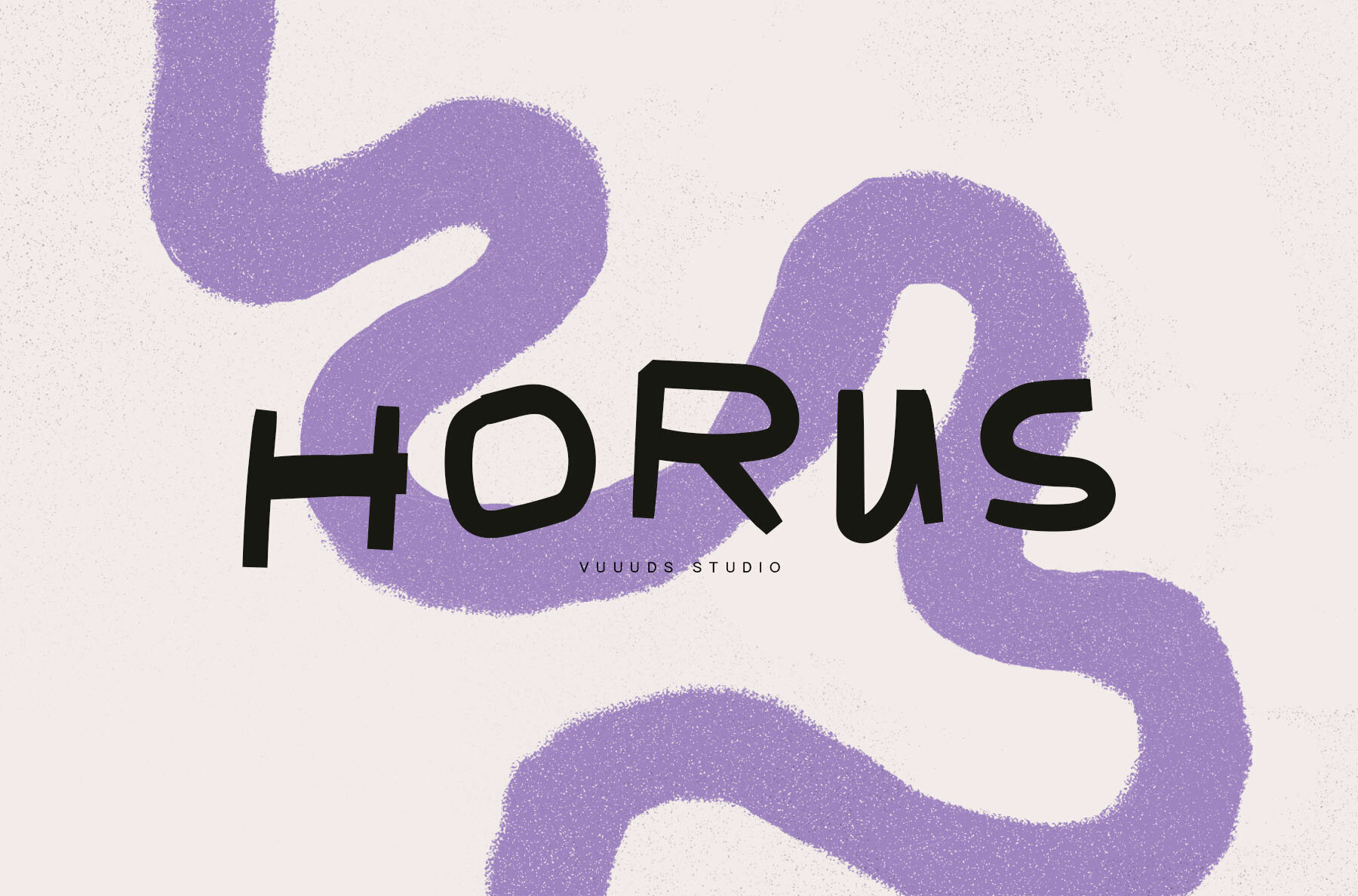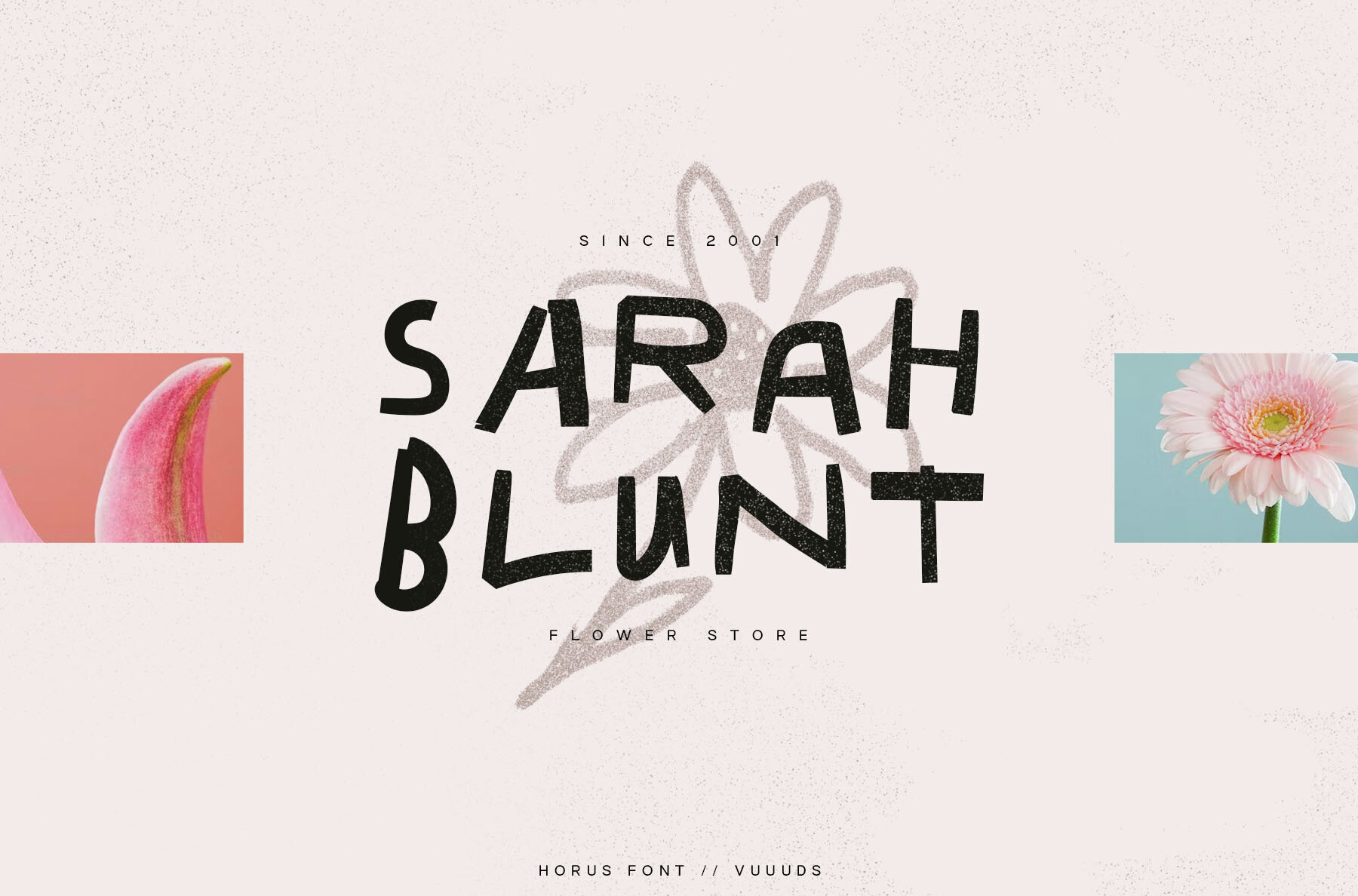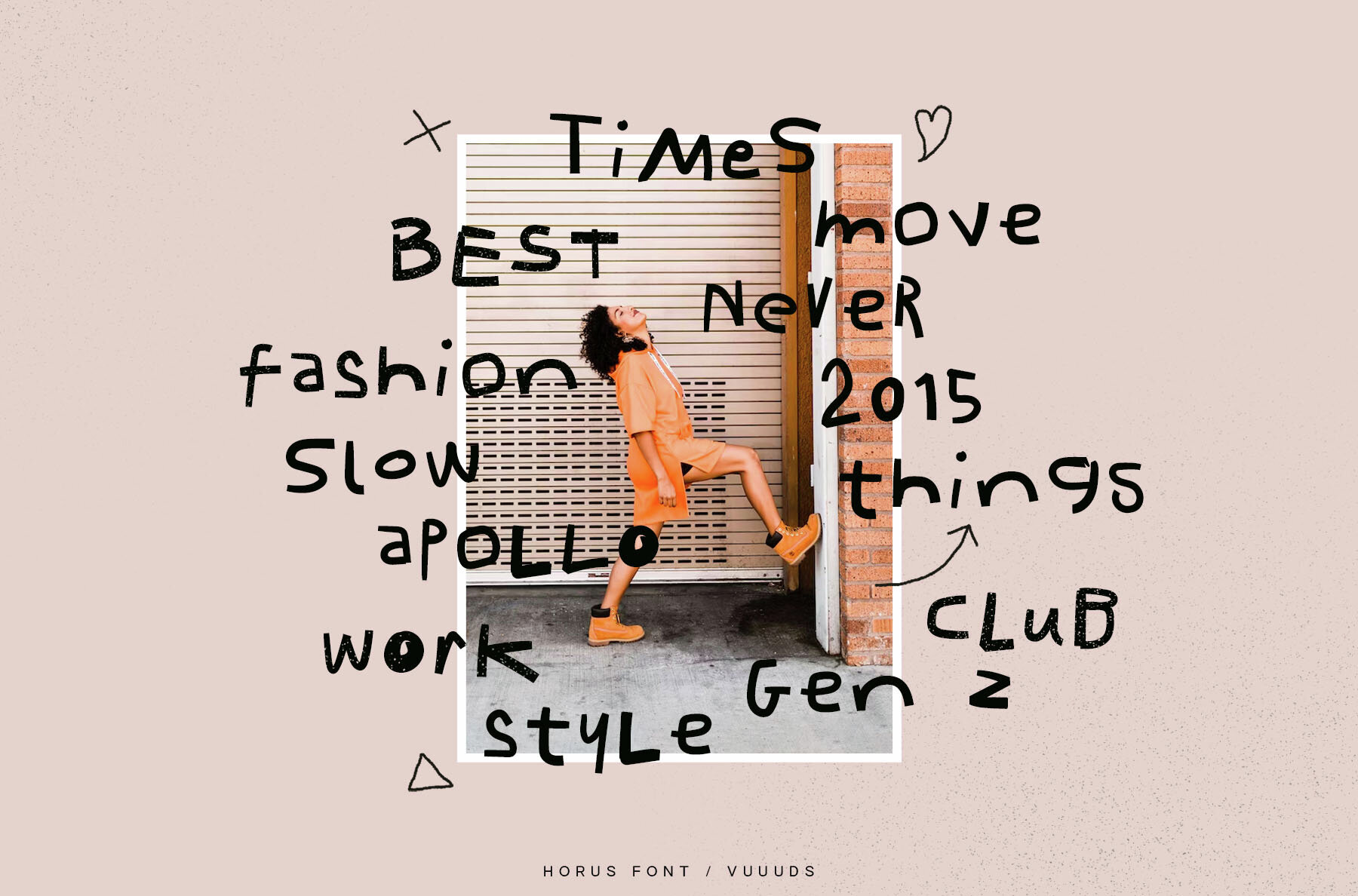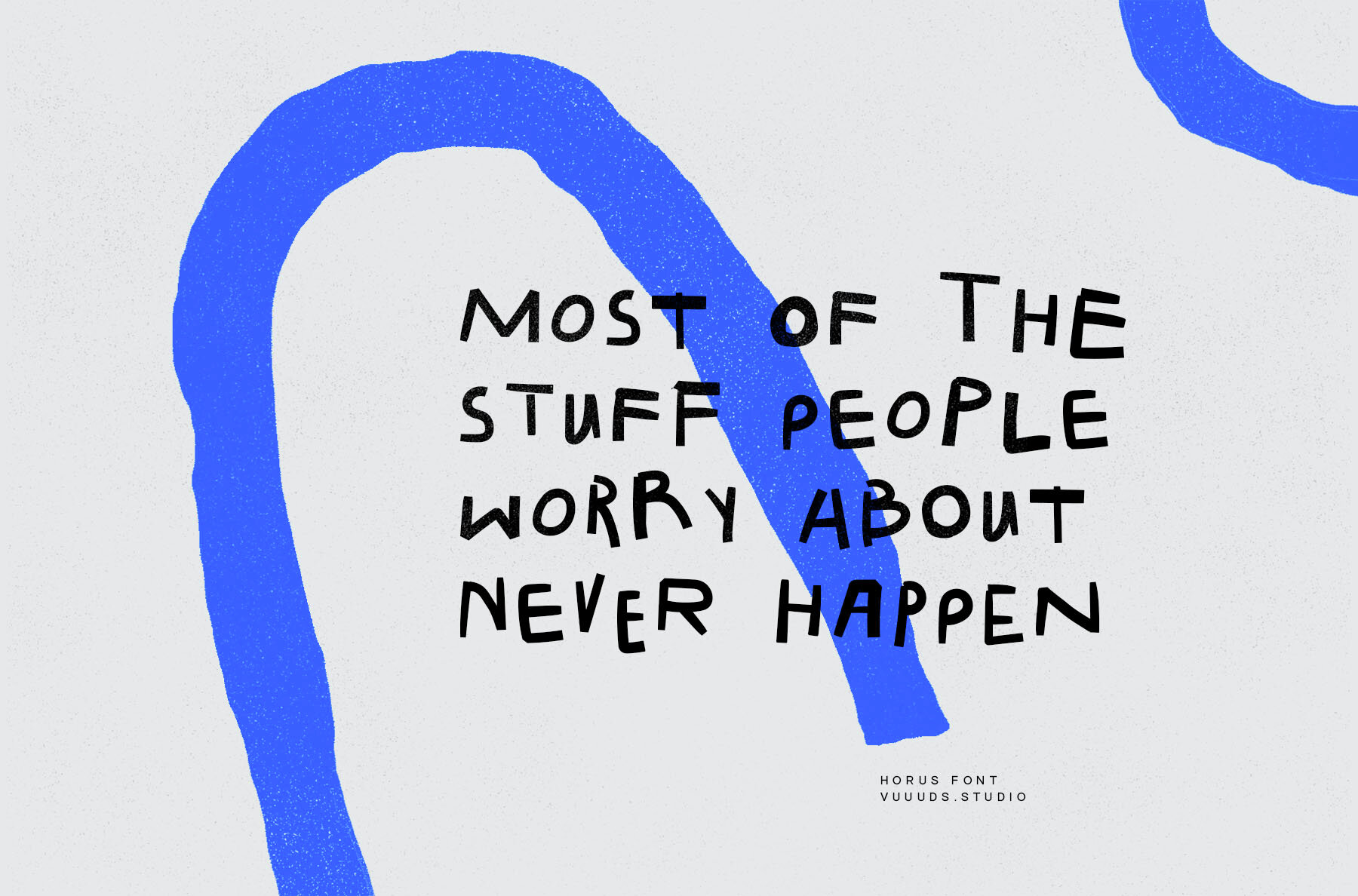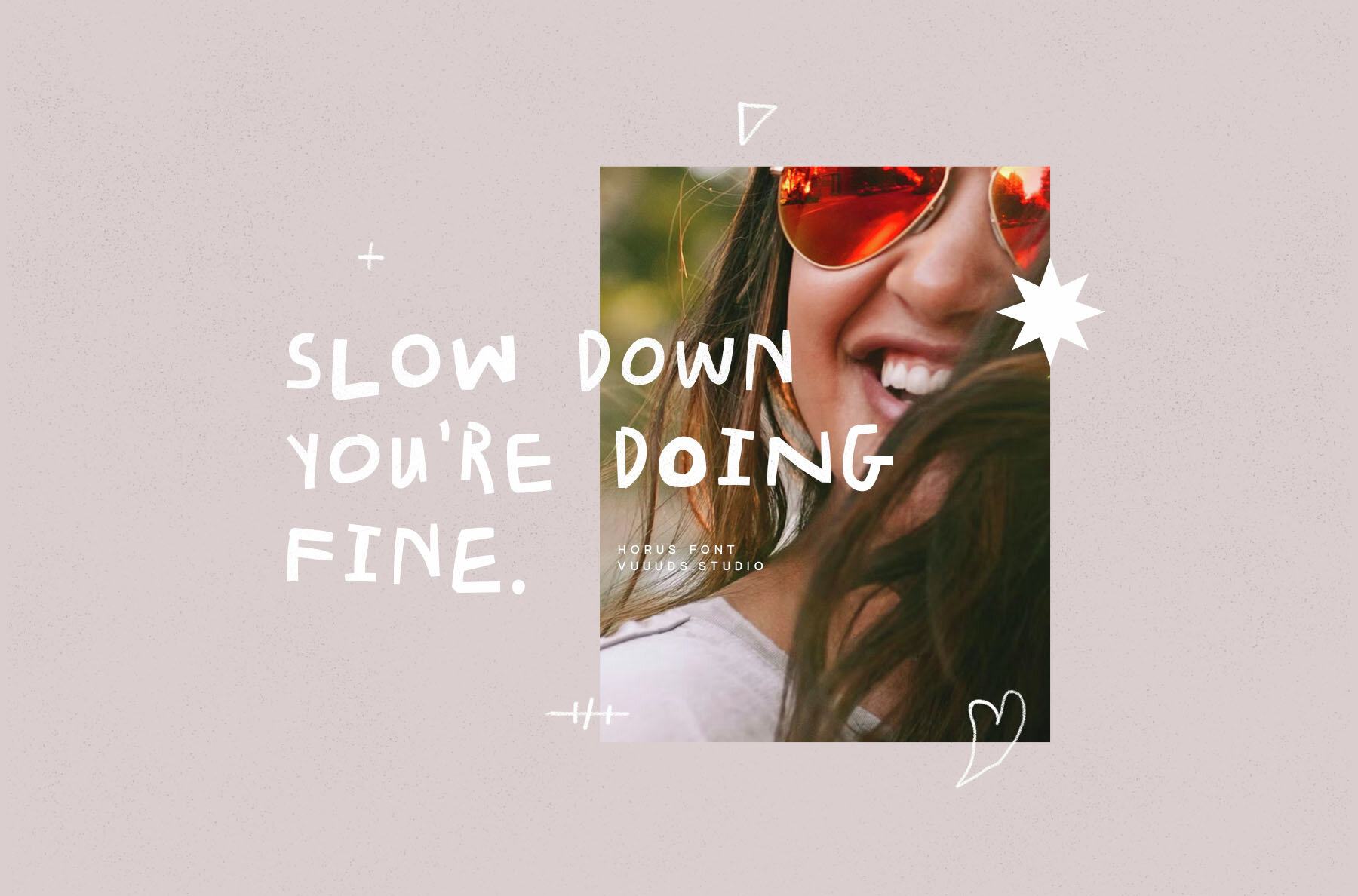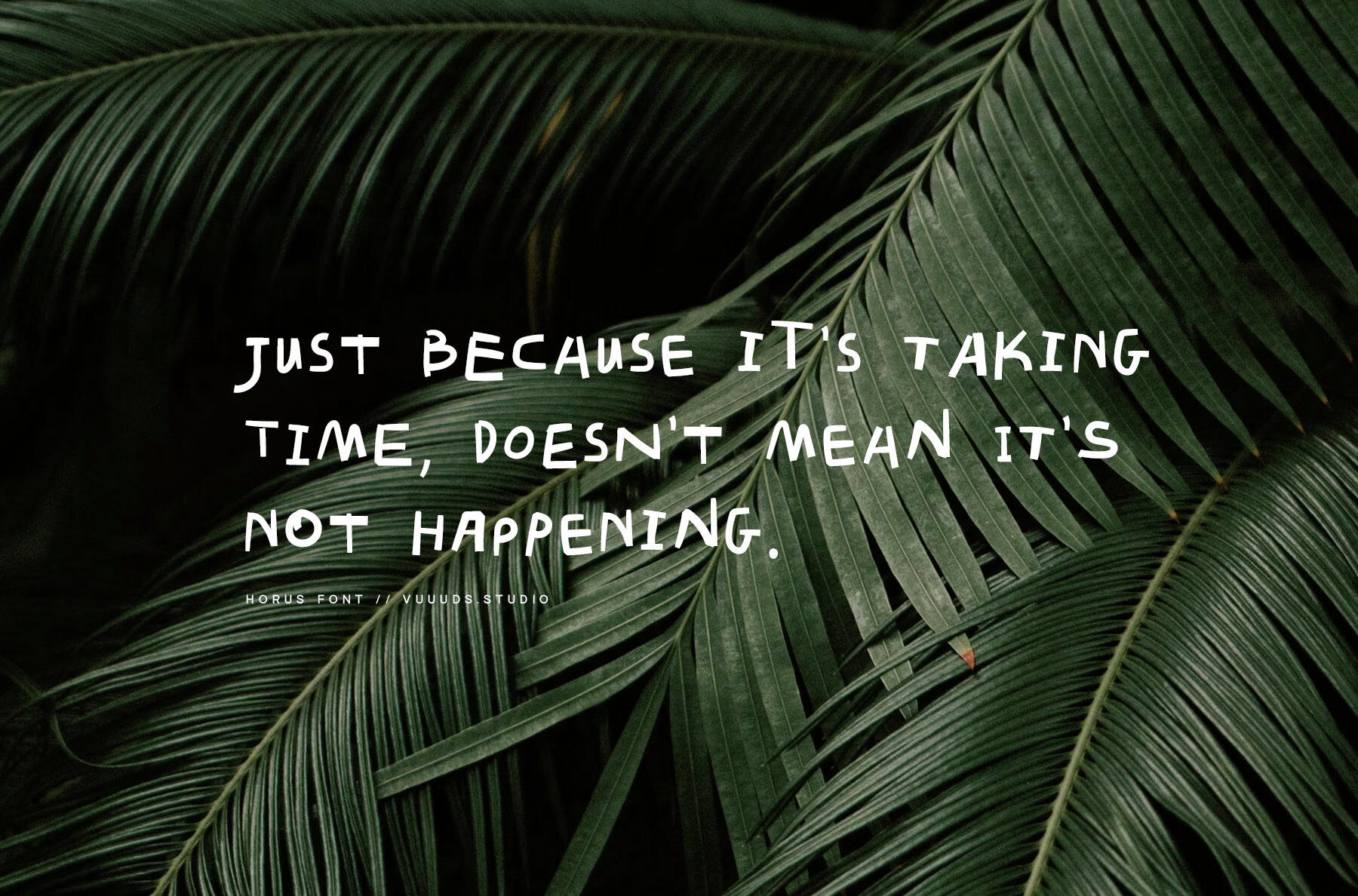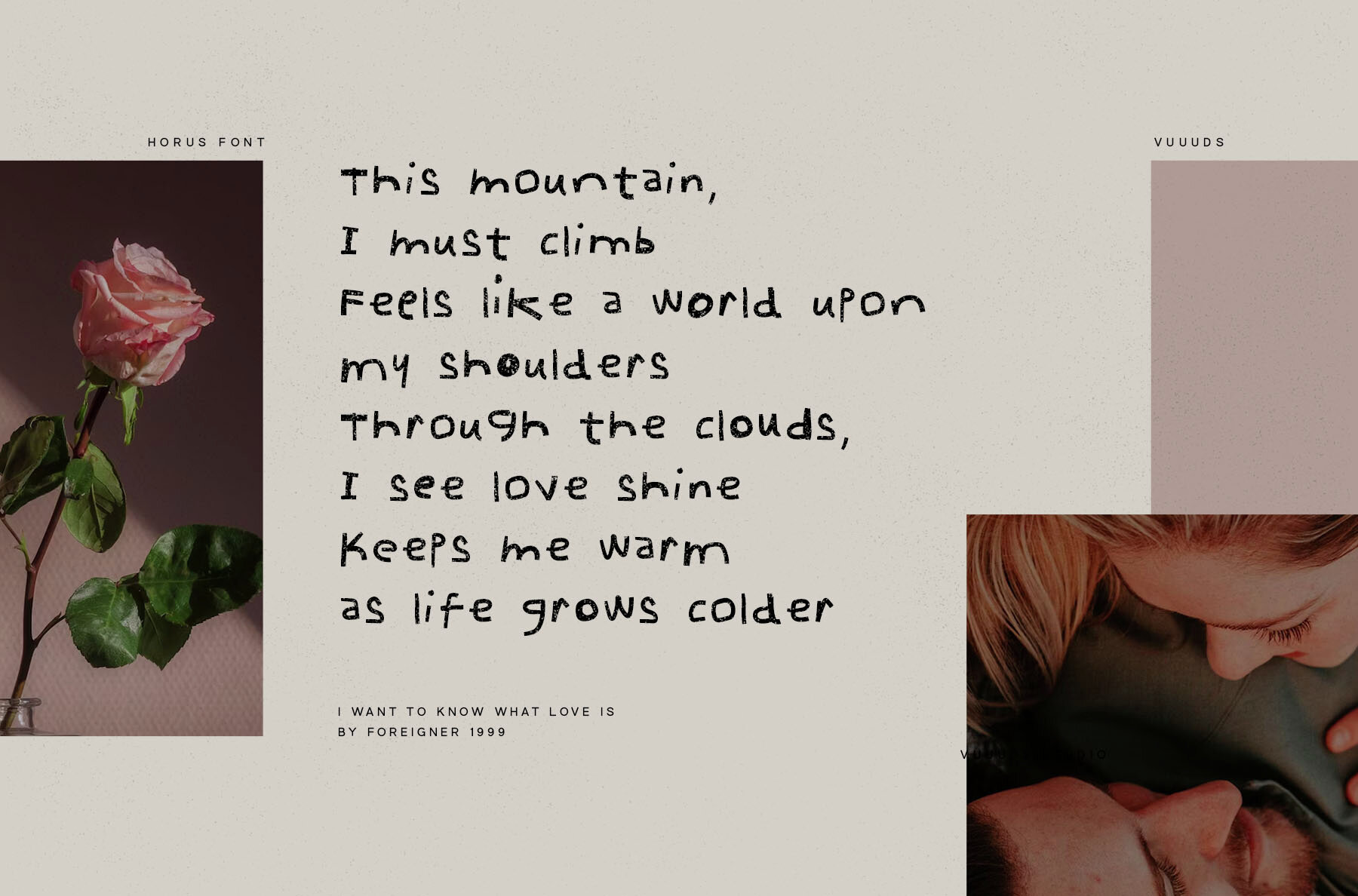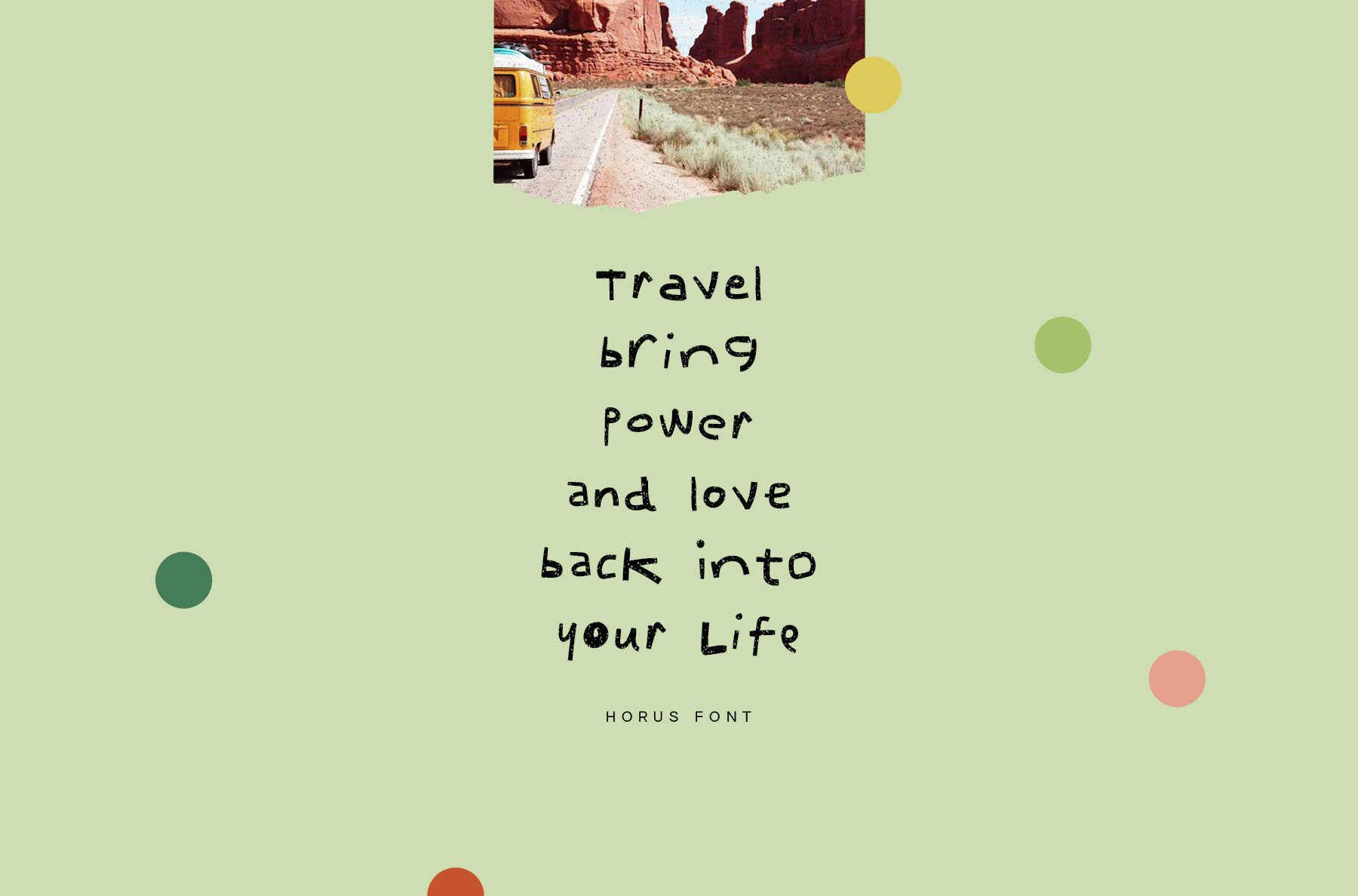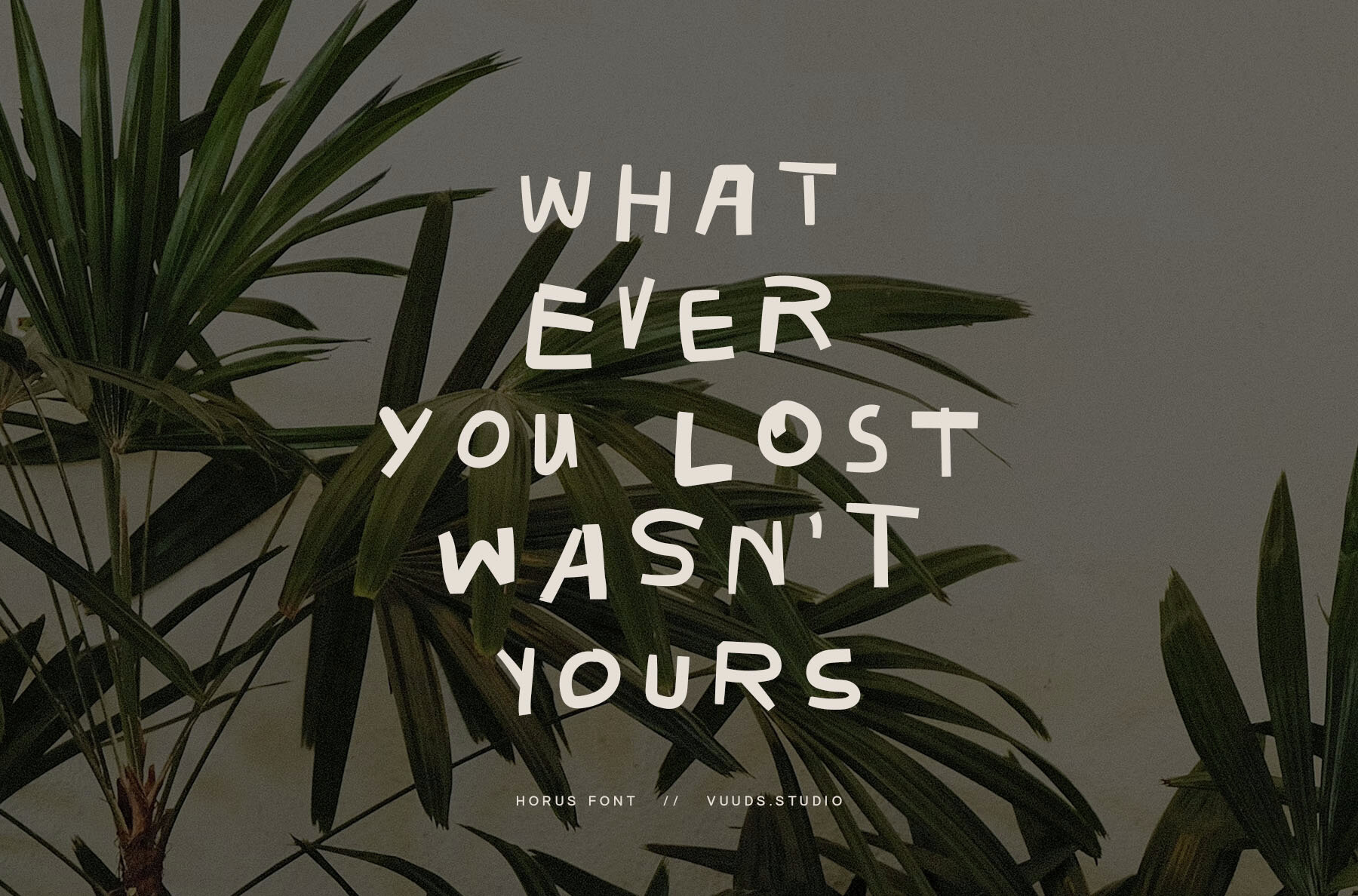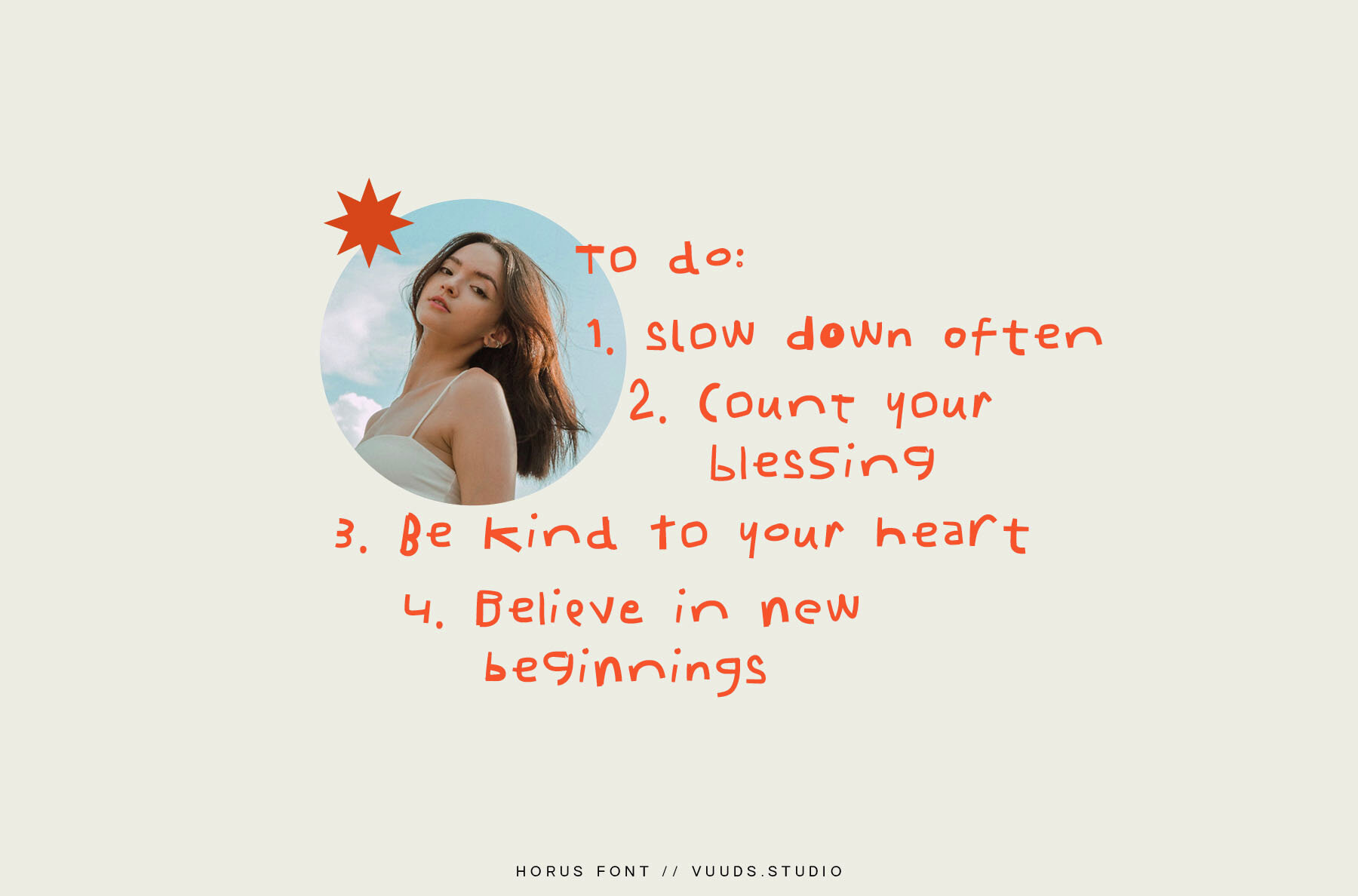
Horus Font
Horus Regular
Horus is a casual handwritten font, featuring uniquely crafted letters that add a personal touch to your design projects. Each letter in the Horus font is crafted with care, offering a unique charm that is perfect for adding personality to creative works. Horus includes a set of beautiful alternate glyphs. Mac users can access these through Font Book, while Windows users can use the Windows Character Map. A tutorial link is provided within the zip file for your convenience.Horus: Casual Handwritten Font with Unique Glyphs
Distinct Features